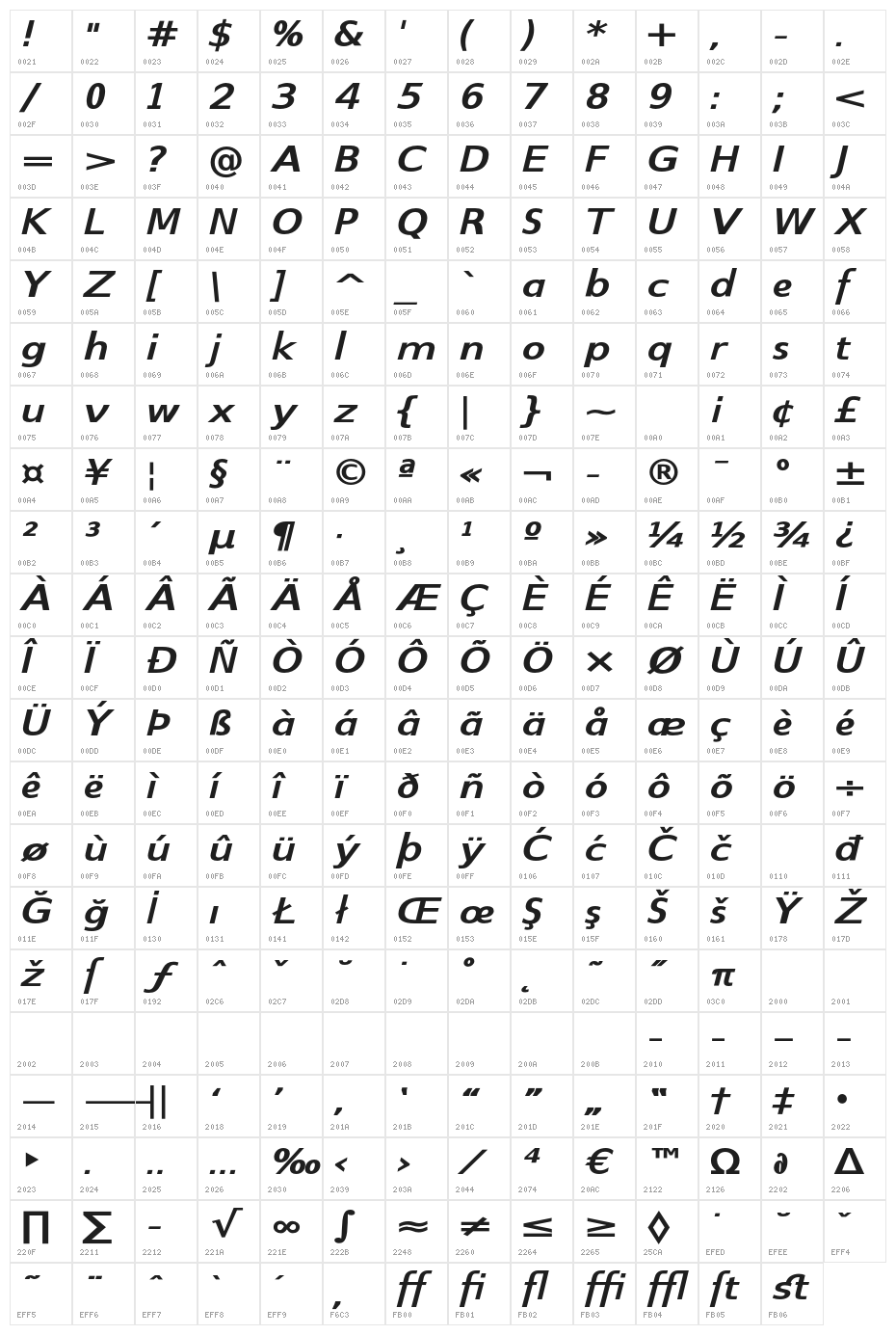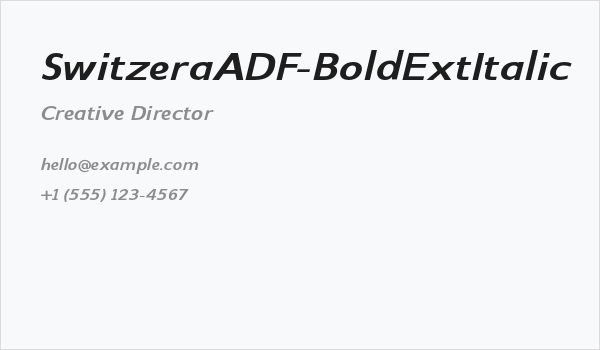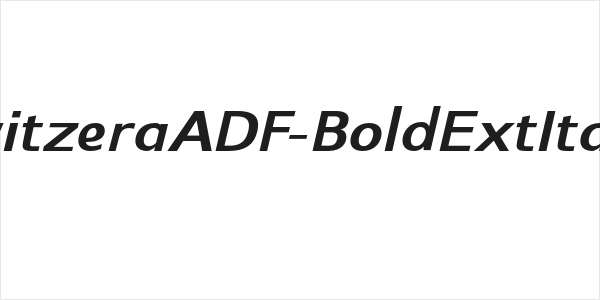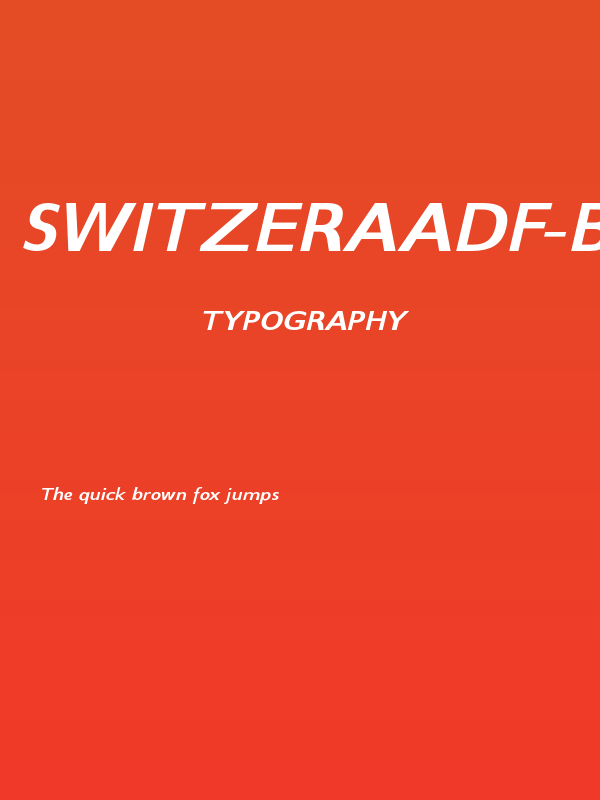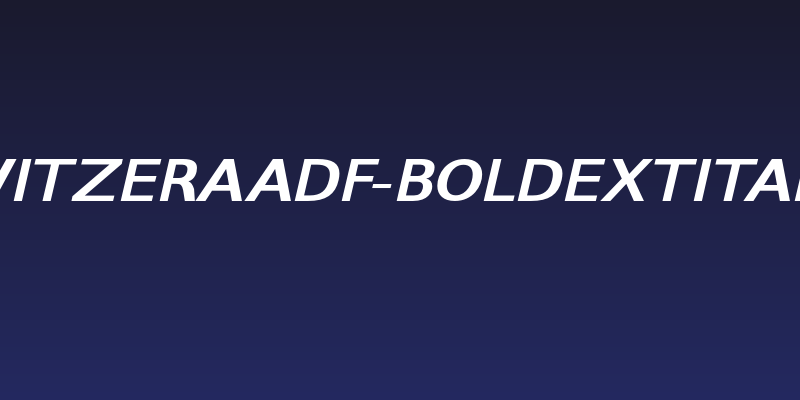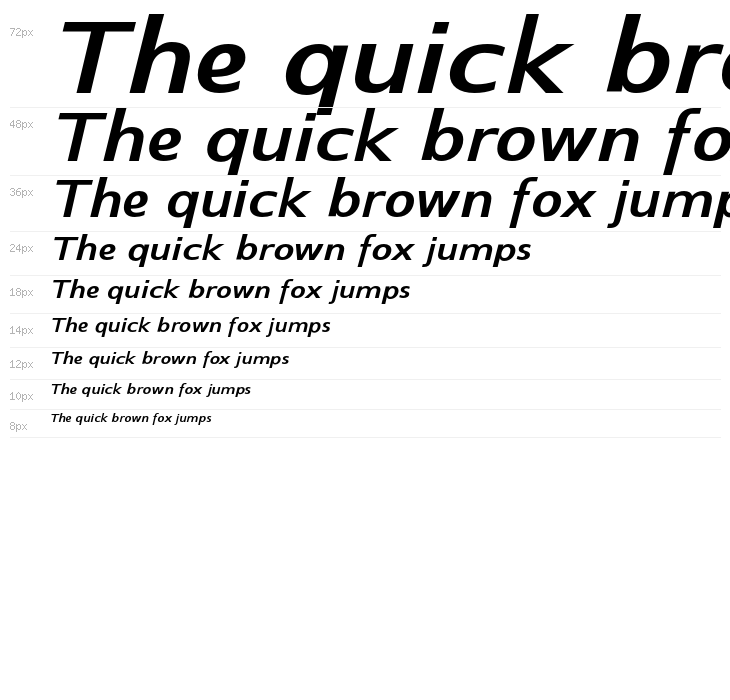
SwitzeraADF-BoldExtItalic Font
SwitzeraADF-BoldExtItalic Description
This font exhibits a bold and extended italic style, characterized by its dynamic and forward-leaning posture. The uppercase and lowercase letters maintain a consistent slant, enhancing the sense of motion and fluidity. The numerals are clear and bold, ensuring readability. Special characters are well-integrated, maintaining the overall aesthetic. The font's design is modern and sleek, making it suitable for contemporary applications where a sense of urgency or movement is desired.
| Use Case | Headlines, Logos, Advertising |
| Proposed Projects | Ideal for branding, advertising, and editorial design where a modern and energetic feel is needed. |